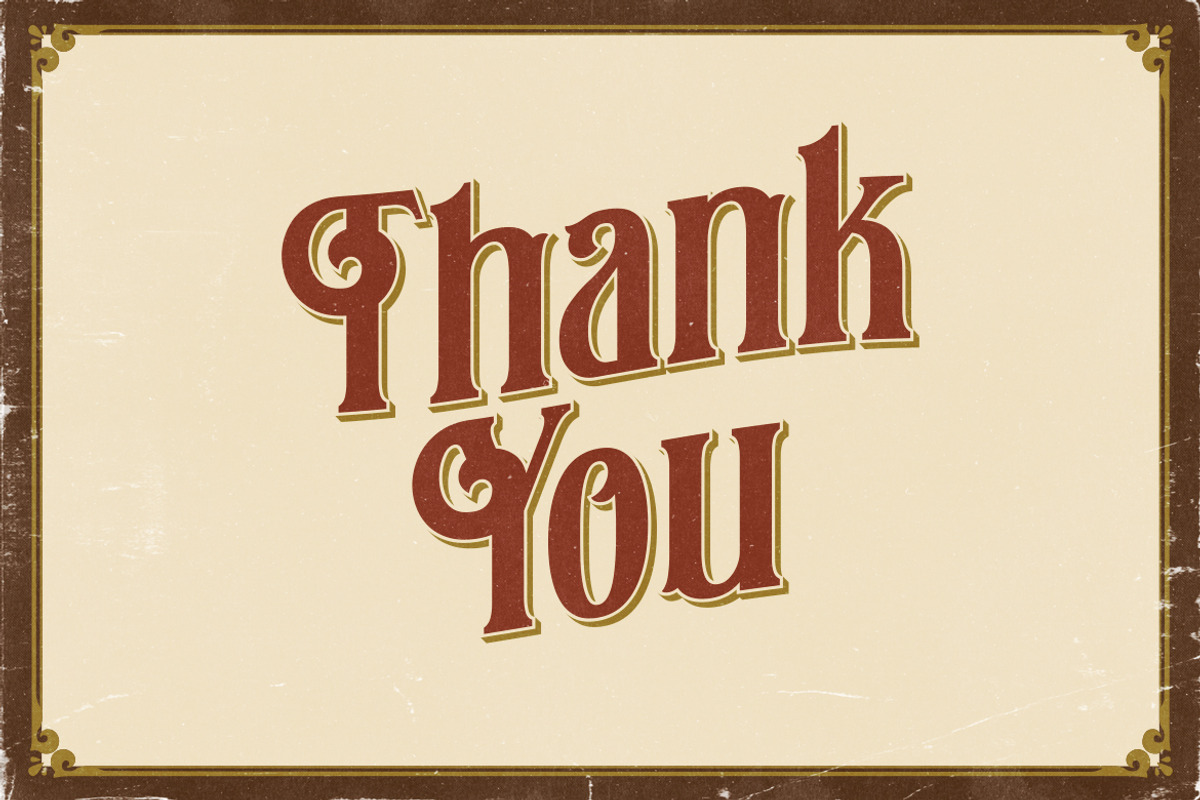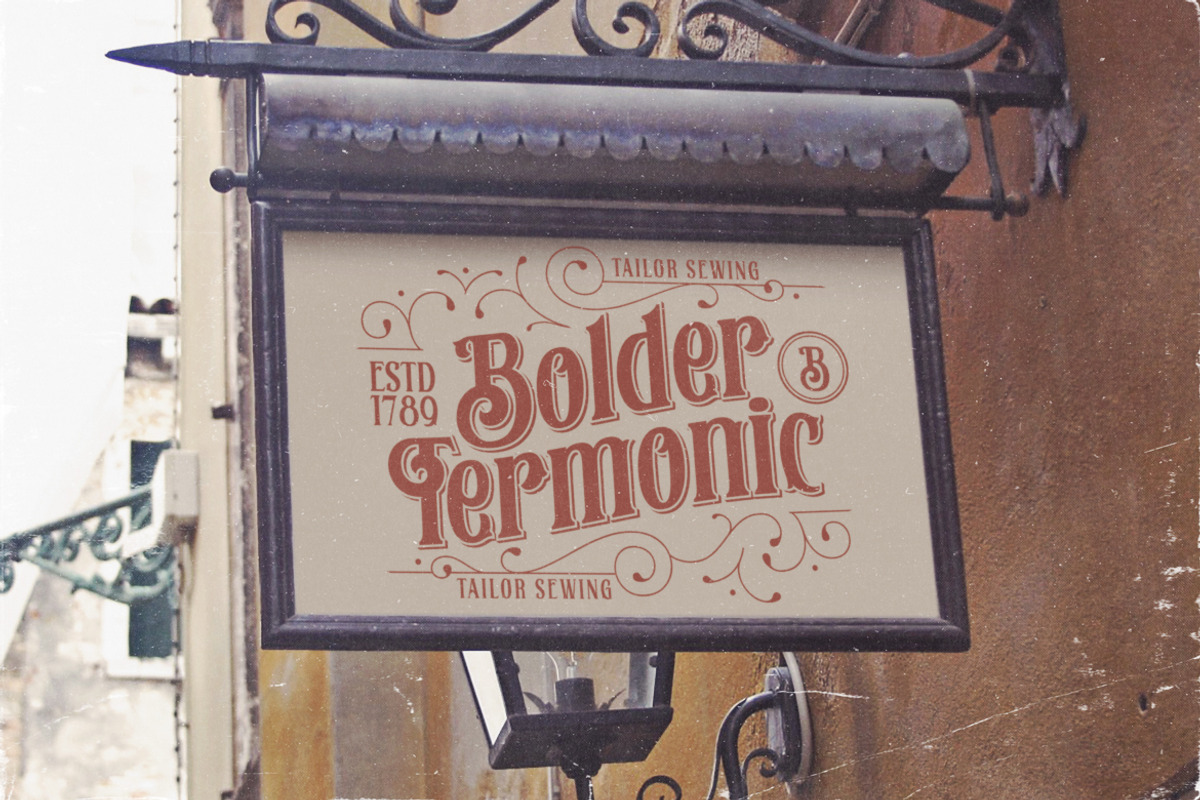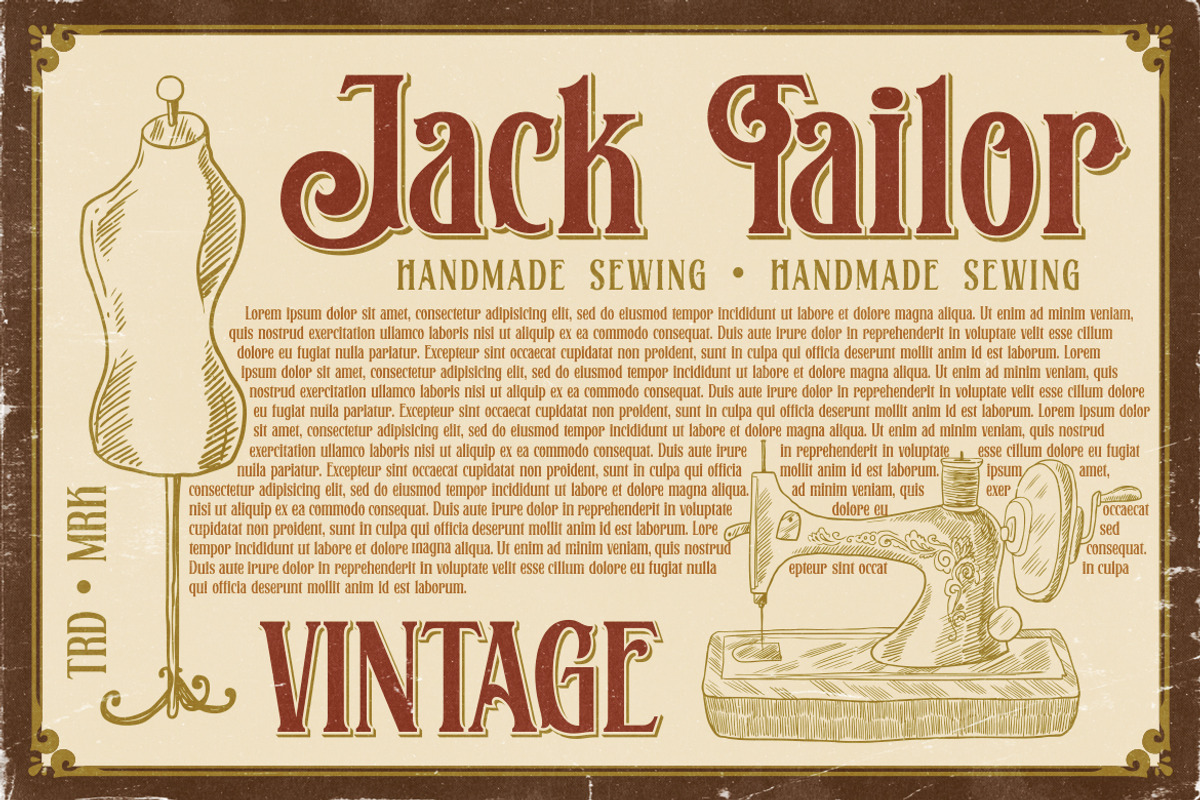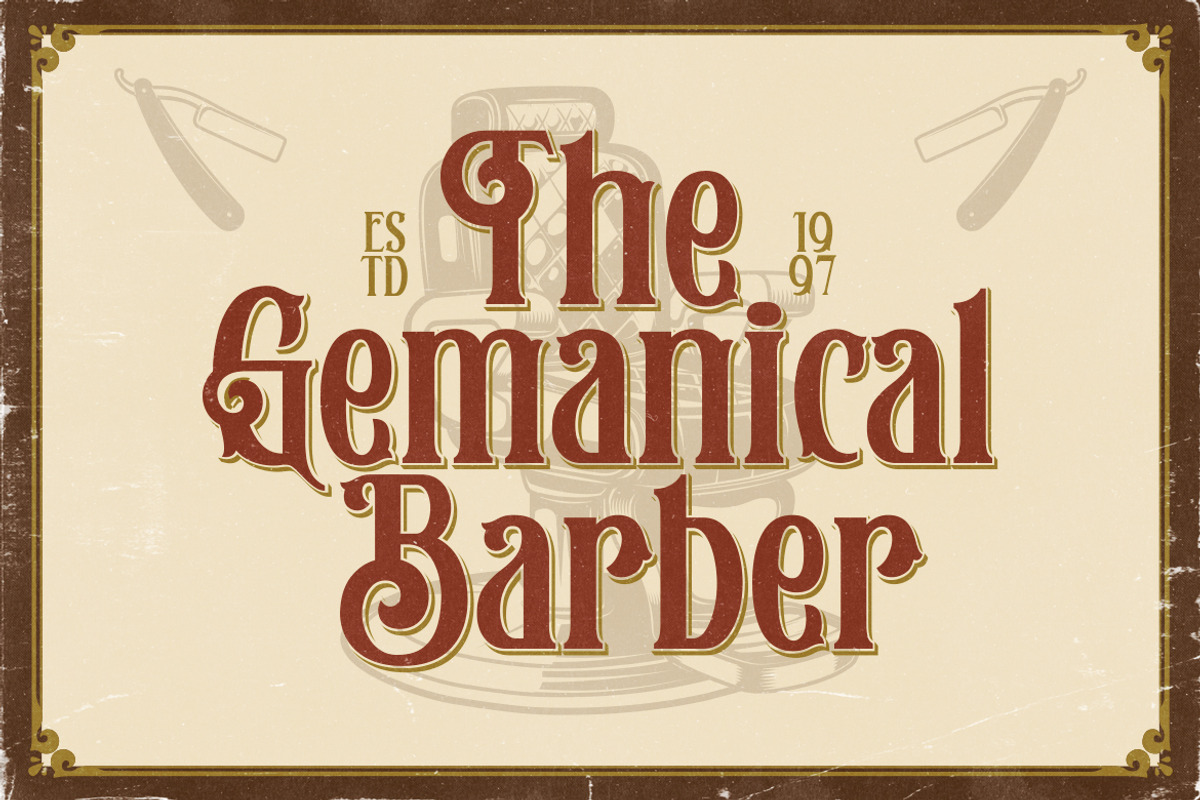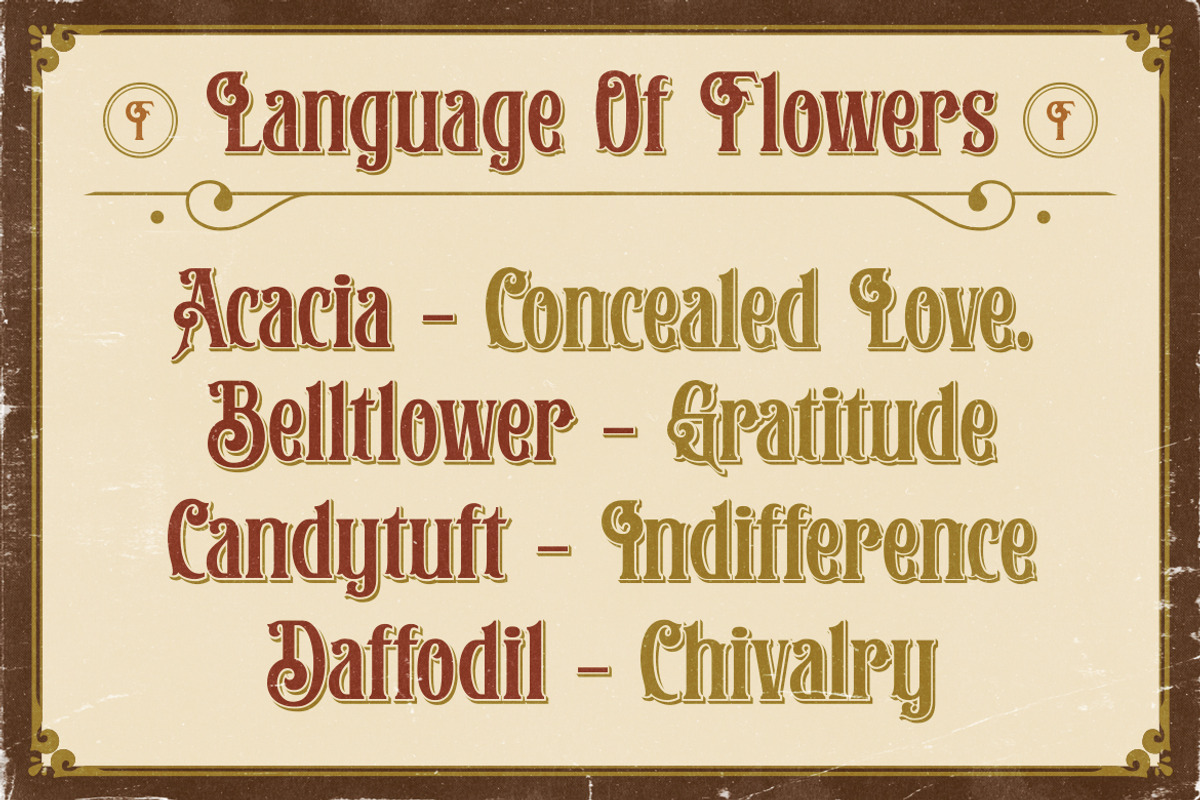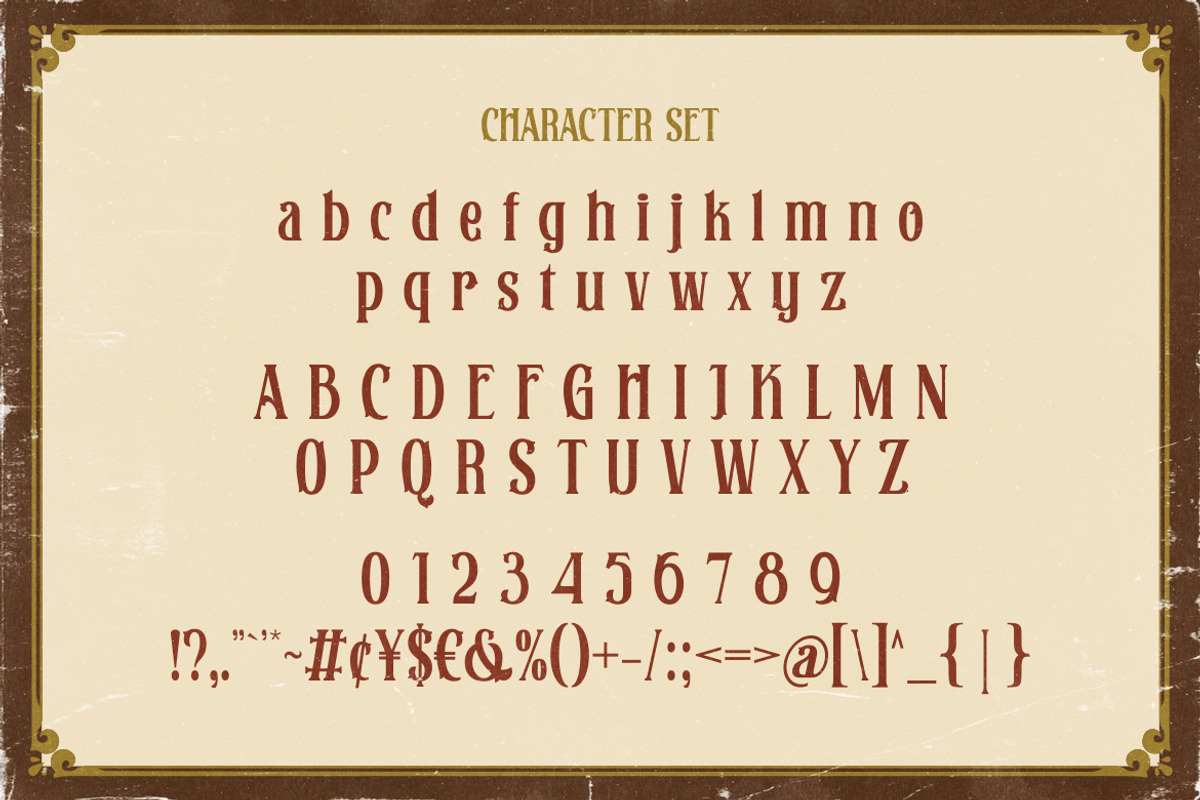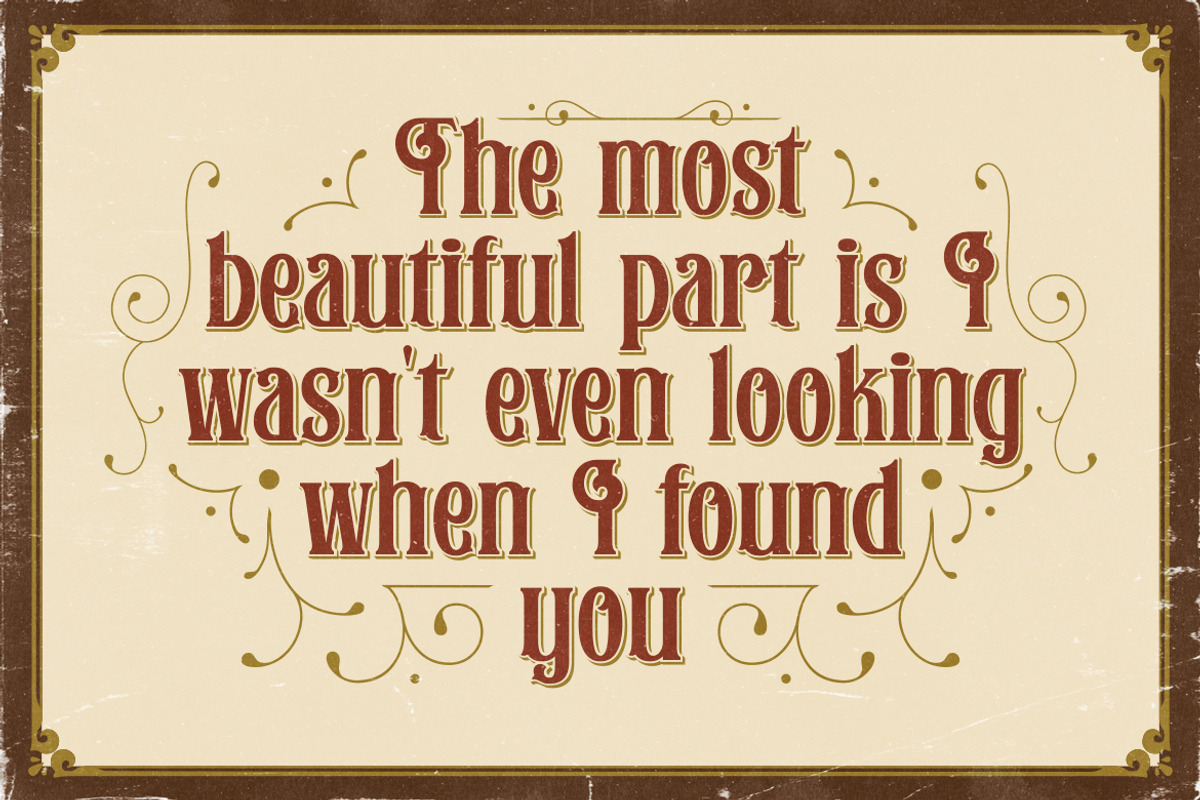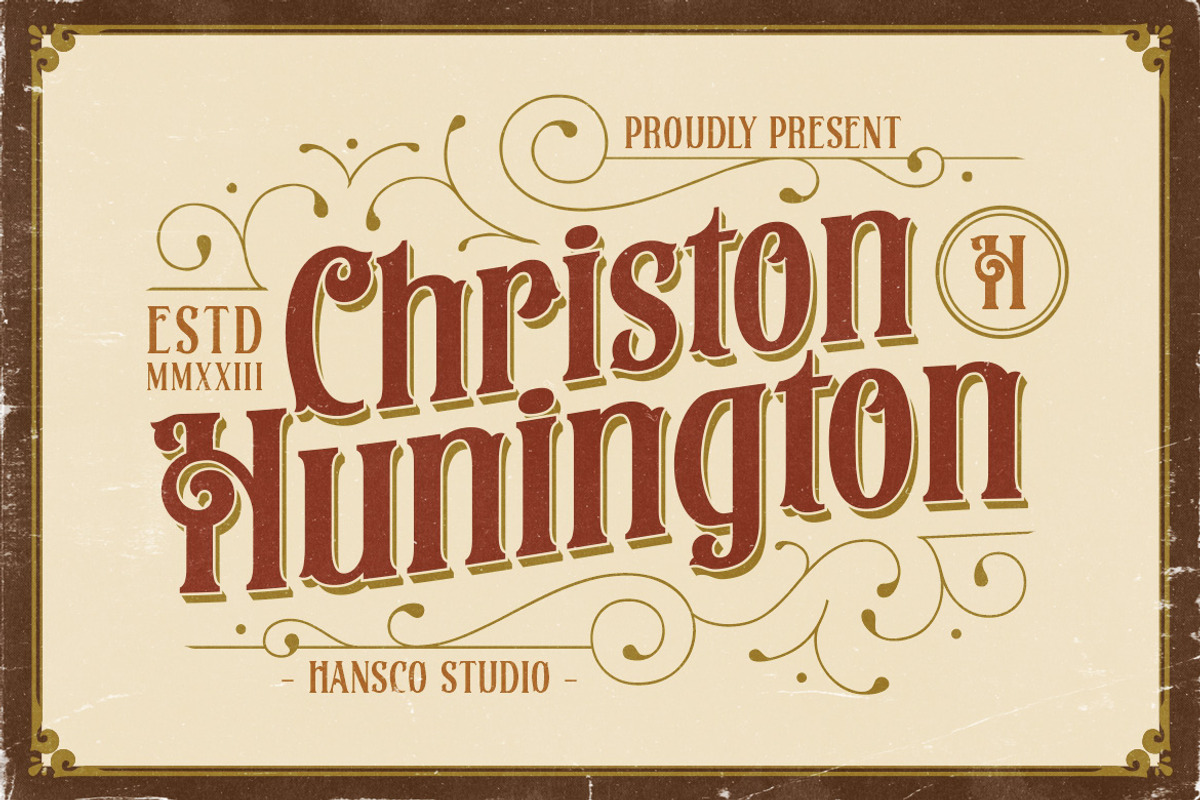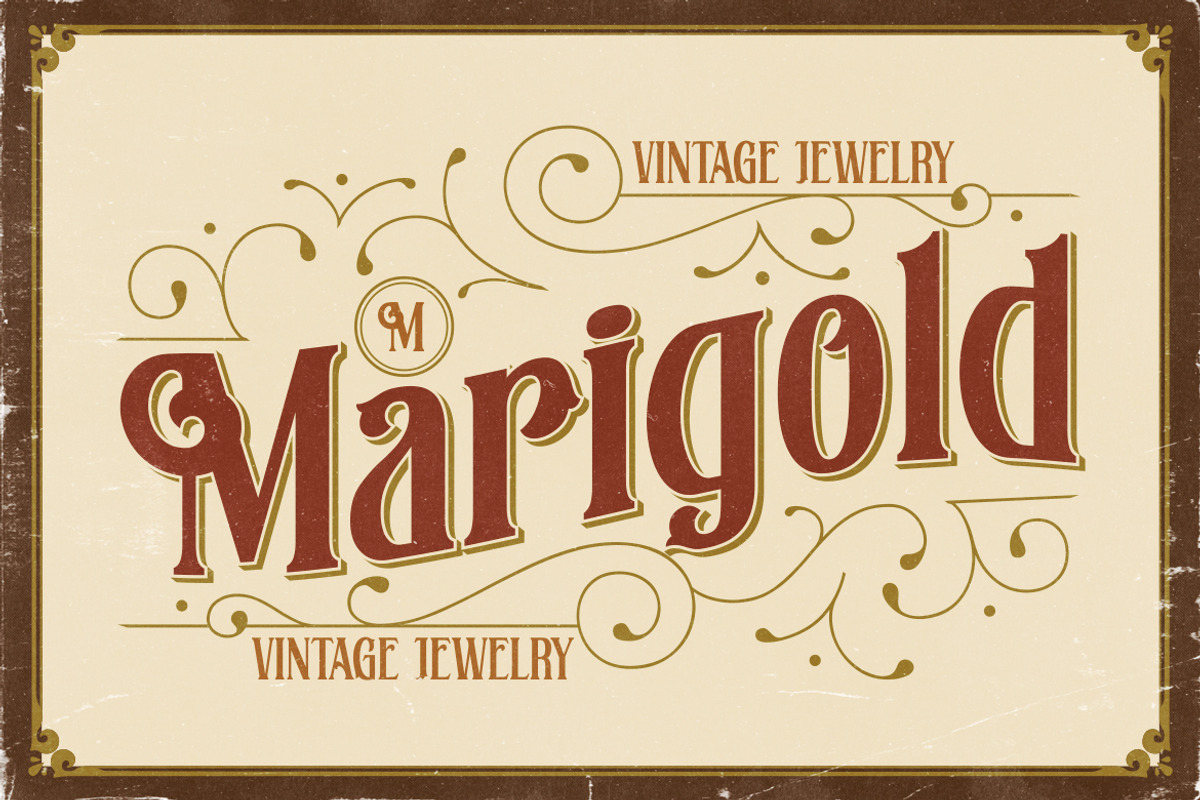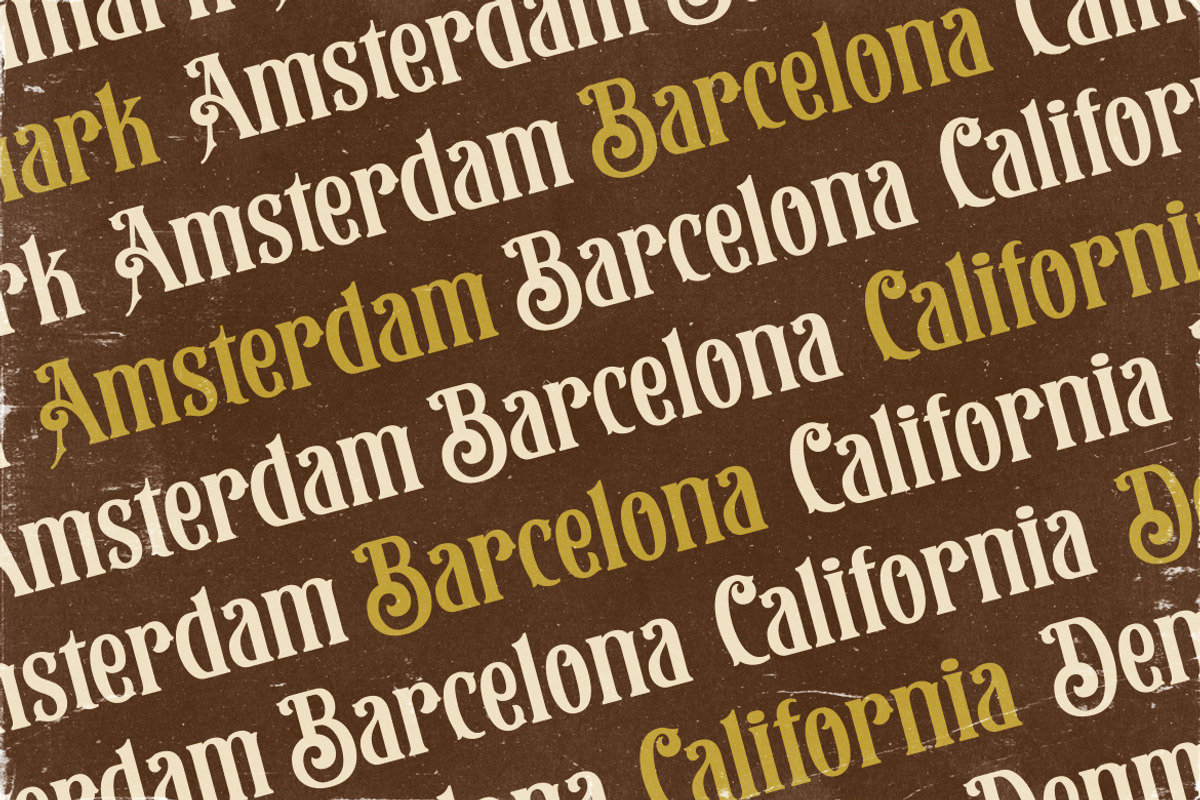
Christon Hunington Vintage Font
Christon Hunington is a Vintage typeface font, it will add an old-time charm to any design project. Don’t miss the opportunity to infuse your designs with the elegance and nostalgia of vintage typography. Our vintage font is the perfect companion for your creative journey. With its multiple formats, alternative characters, and ornamental elements, it’s never been easier to bring the timeless charm of the past into your modern projects. This collection of font is perfect for everything your project with vintage, retro, wild or organic style. It was made with the intention of being used for product Logo like a Pomade, Coffee, Barber shop or packaging label. It’s great also for Branding, Logo designs, Lettering, Logotype, Craft, Posters and much more.
- Alternate Character Ornament